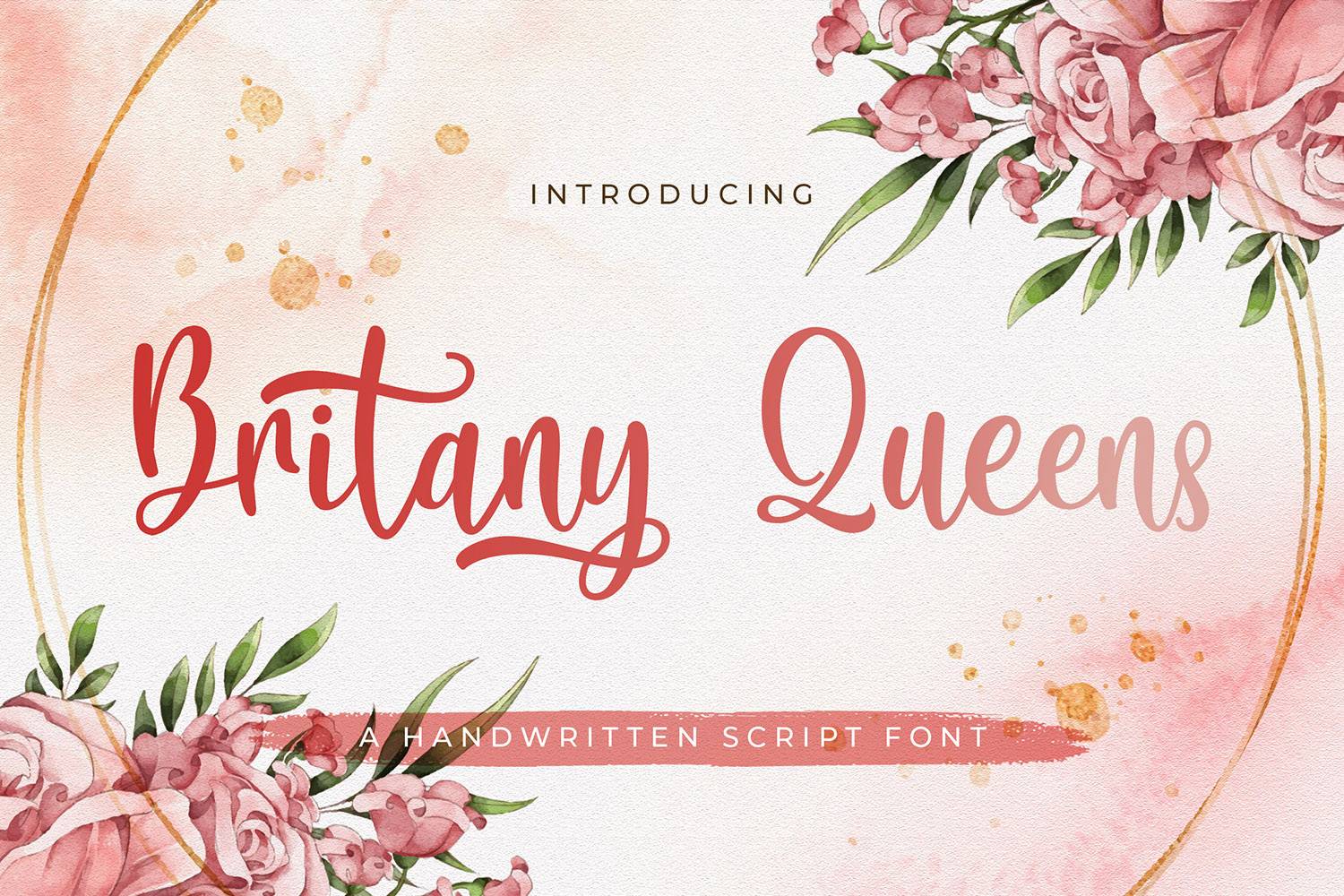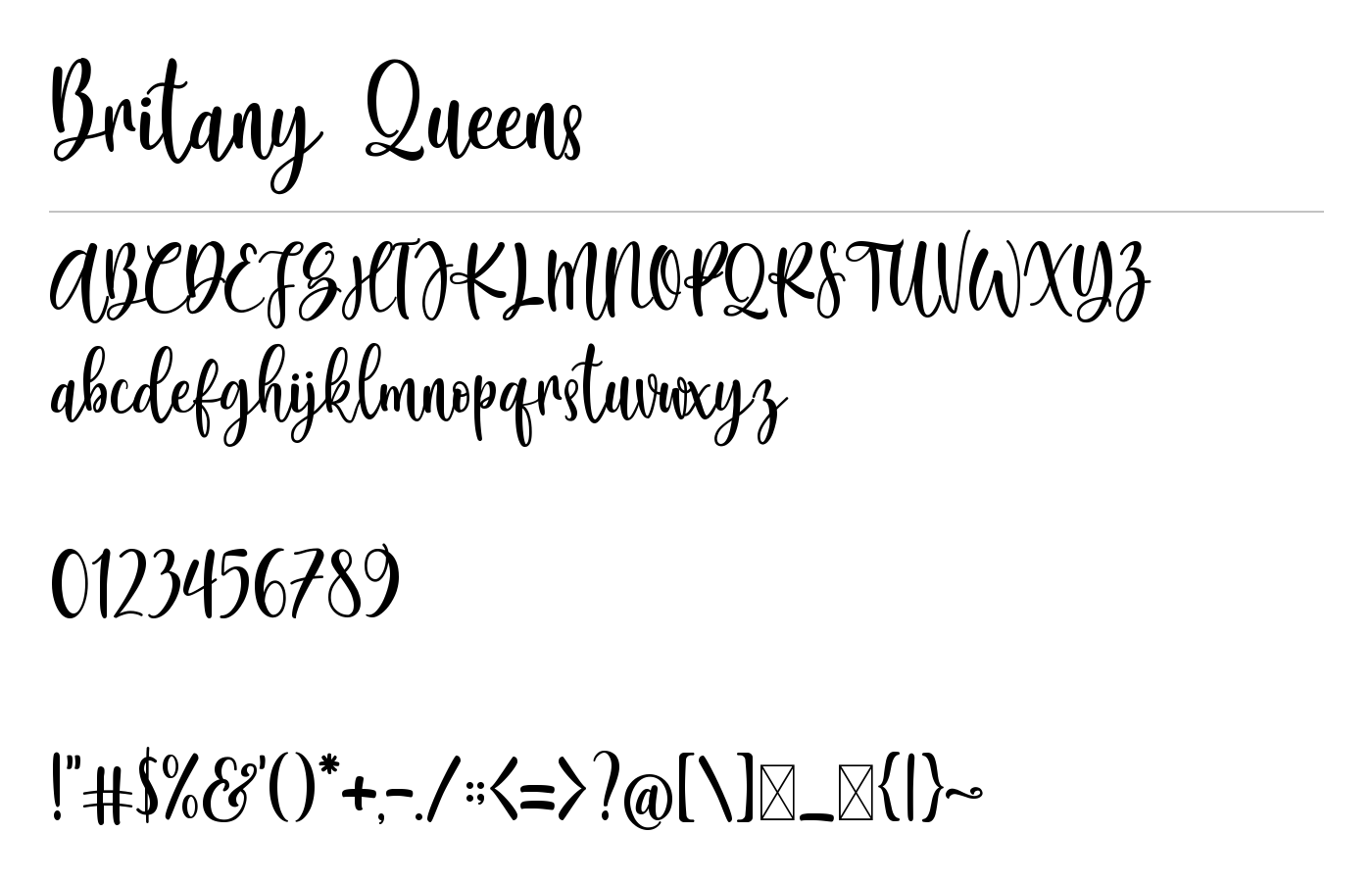
Britany Queens is a graceful script font with a lively, handwritten style that combines elegance with a playful charm. Its slender, slightly condensed letterforms feature smooth curves and moderate contrast, making it perfect for feminine branding, invitations, and stylish headlines where a personal, approachable feel is desired. This font’s unique character shapes and consistent flow bring warmth and creativity to any design, ideal for fashion, beauty, and lifestyle projects.
Britany Queens Font
About Britany Queens Font